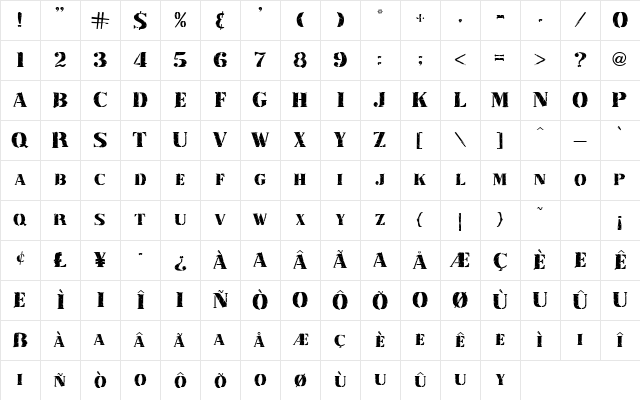
Inkpad Regular Free Font
Inkpad Regular
Design Context for Inkpad
Inkpad is a composed and adaptable typeface that performs quietly and consistently across a wide range of design contexts.